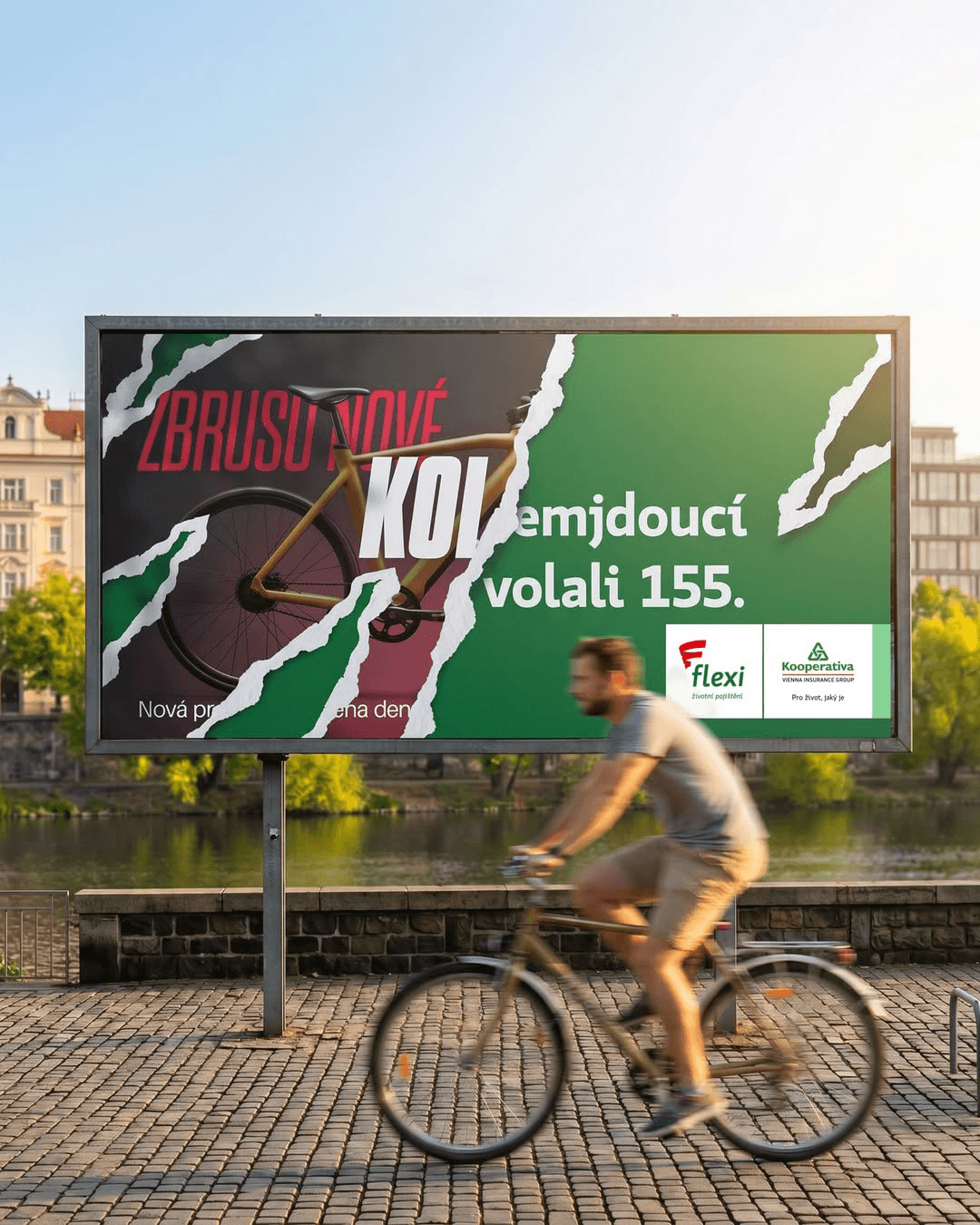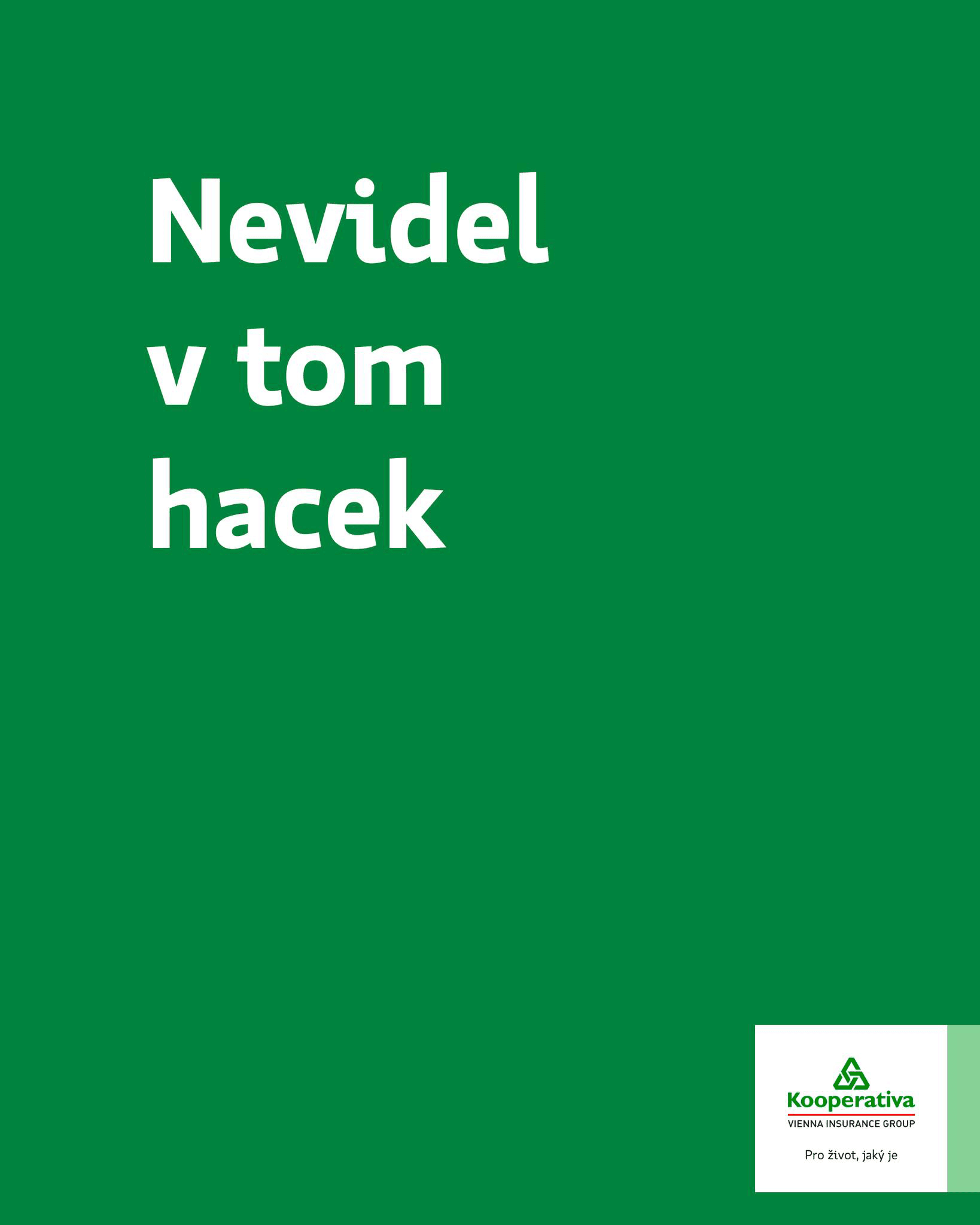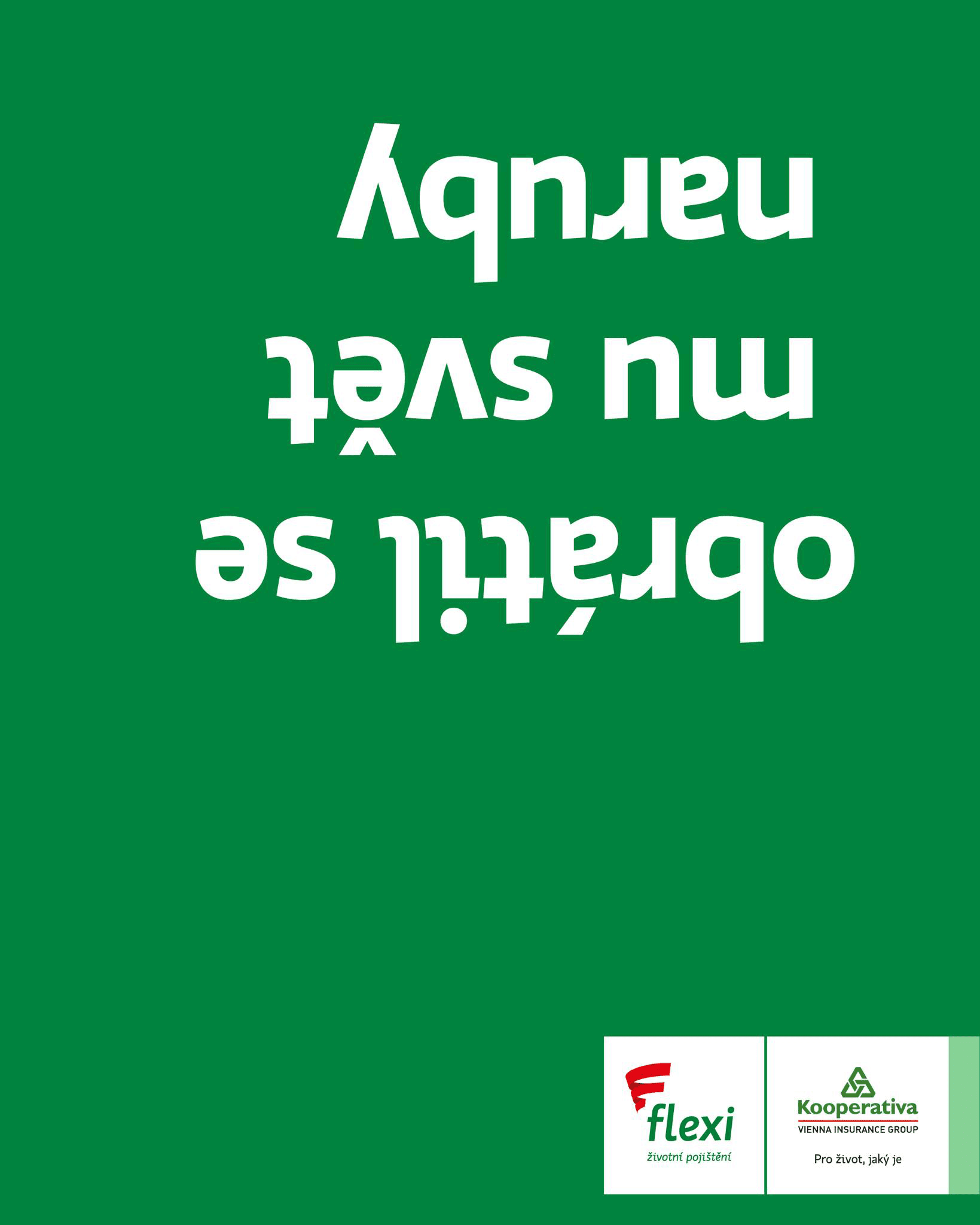
Koop Pro
Kooperativa is an insurance company whose brand identity is built on exceptionally refined copywriting, making typography a key element of its visual language.
This corporate typeface originated from Gloriola, and through the modification of several frequently used glyphs, it gained a highly distinctive and recognizable character.